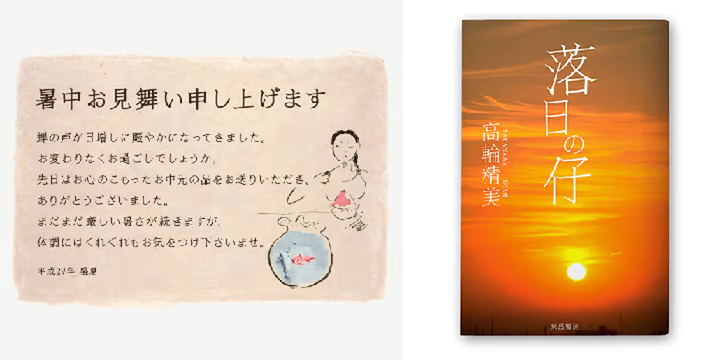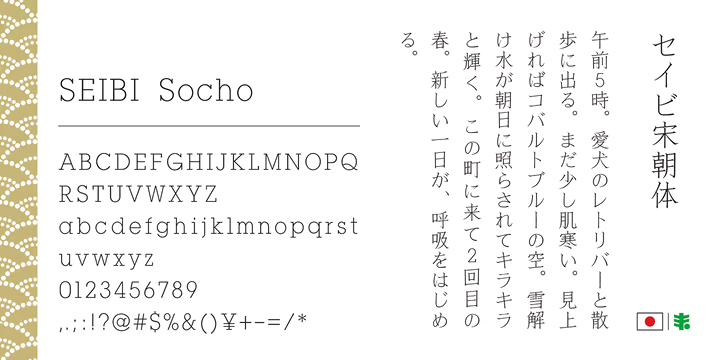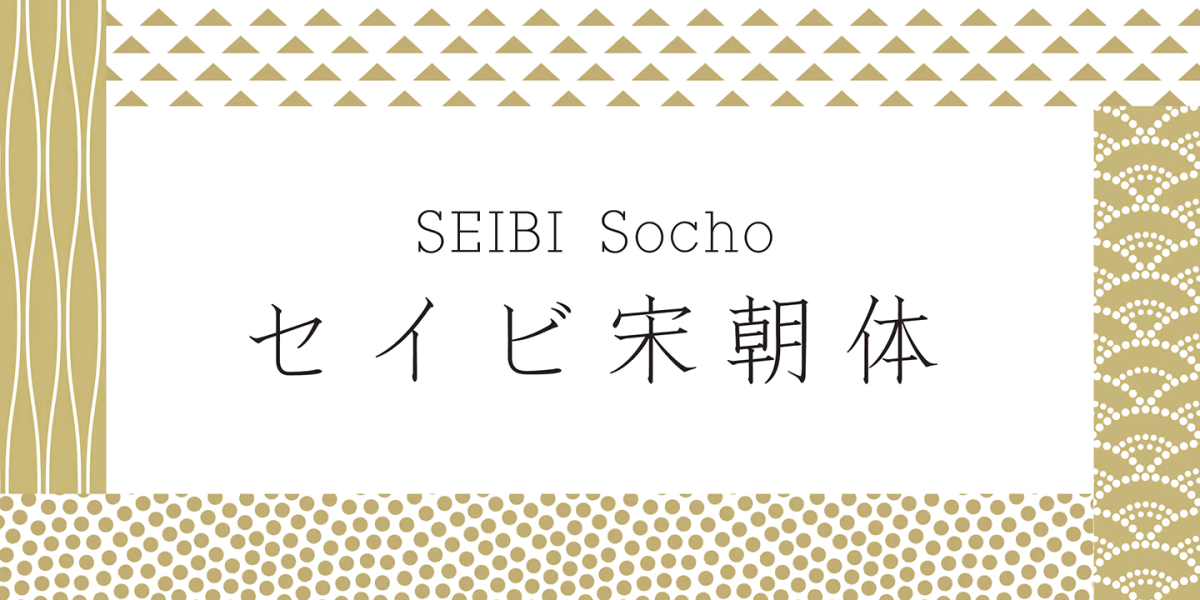
Seibi Socho Font
The Socho (Song Dynasty-style) typeface is based on a style used for woodblock printing in Song-period China. The SEIBI Socho typeface updates the Song style by making it simpler and sharper. With minimized size variations between kanji and kana, the design is readable both in vertical and horizontal typesetting.